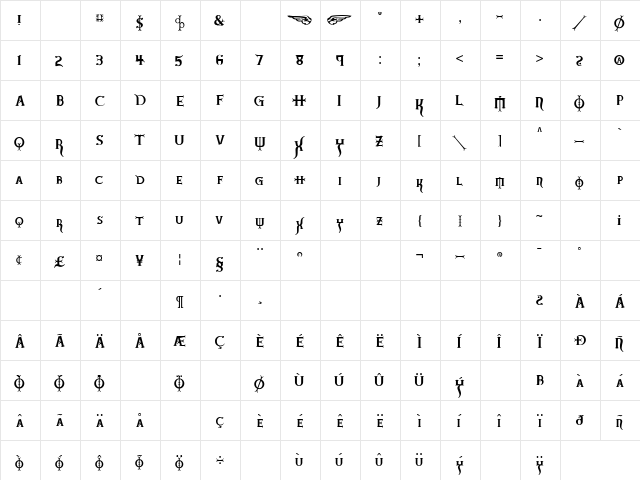
BadAngel Sinner
Design Context for BadAngel Typeface
BadAngel is a composed and adaptable typeface that performs quietly and consistently across a wide range of design contexts.